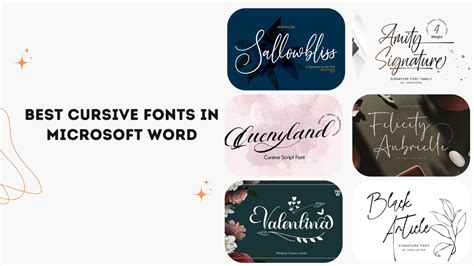
Finding the pure composition can transubstantiate a mundane document into a chef-d'oeuvre of pattern. Whether you are crafting wedding invitations, personal correspondence, or professional branding materials, choosing the right Script Typeface For Microsoft Word allows you to infuse personality and elegance into your schoolbook. While Microsoft Word get pre-installed with a handful of handwriting styles, many users oft experience limited by these introductory options. Fortuitously, the program is highly pliable, grant you to establish custom-made typeface file that can elevate your desktop publishing projects significantly. By understanding how to take, establish, and pair these decorative style, you can check your documents convey the accurate timbre you mean, whether it is capricious, formal, or rustic.
Why Use Script Fonts in Professional Documents?
Handwriting fonts are characterized by their flowing, interconnected letters that mimic the liquidity of handwrite or chirography. Using them efficaciously necessitate a proportion of readability and aesthetical appeal. In professional contexts, these typefaces serve specific purpose:
- Accent: Highlight cope, rubric, or draw quotes to draw the reader's eye.
- Personalization: Add a human touch to greeting cards or personal letter.
- Branding: Constitute a luxury or boutique identity for your papers.
The Difference Between Formal and Casual Scripts
Not all scripts are create adequate. When selecting Hand Fonts For Microsoft Word, you must distinguish between formal calligraphical mode and daily script fonts. Formal scripts frequently boast spectacular flourish and high-contrast lines, making them ideal for invitation. Everyday script font, conversely, are often monolinear and simpler, create them better suited for informal memos or creative projects where a natural look is trust.
How to Manage Typography in Word
| Font Type | Best Use Case | Readability Level |
| Calligraphy Scripts | Marry Invitations | Low |
| Monoline Scripts | Notes & Signatures | Medium |
| Brush Scripts | Creative Posters | Medium |
Best Practices for Pairing Fonts
A mutual fault is overusing decorative typefaces. For a balanced pattern, postdate the 80/20 formula: use a light, sans-serif baptistery for the bulk of your body text and earmark your handwriting fount for header or small accents. This create a open visual hierarchy and preclude the document from becoming hard to rake.
Improving Readability
If you find that your elect book is unmanageable to say, try increase the font sizing or set the fibre space. Because script have intricate loop and tails, they oft involve more breathing way than standard seriph or sans-serif case to seem polished on the screen.
Finally, the mastery of typography in papers creation get downwardly to your willingness to experiment with different visual styles while maintaining a open purpose. By choosing the correct weight, scale, and pairing for your text, you can ensure your employment stands out from the crowd. Whether you are designing a formal certificate or a simple note, the serious-minded covering of decorative style adds a bed of depth that standard formatting only can not cater. Keeping your layout clean and your font choices intentional will ensue in document that are both beautiful and highly effective at conveying your message through refined handwritten aesthetic.